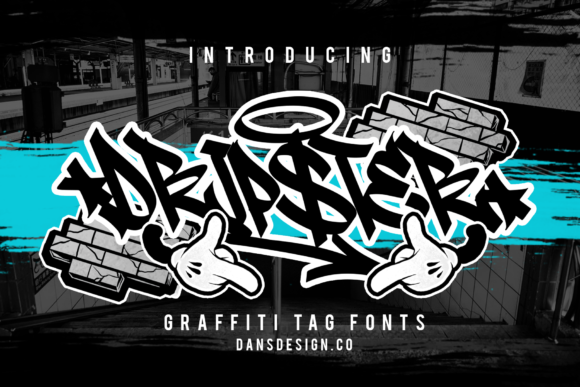
Dripster Font: The Ultimate Graffiti-Themed Display Font for Your Design Needs
In the world of typography, fonts play a crucial role in conveying the tone and personality of a design. When it comes to creating bold and eye-catching designs, a graffiti-themed font can be an excellent choice. One such font that has gained popularity among designers is the Dripster Font. In this article, we’ll explore what makes Dripster Font an outstanding choice for your design needs and how it can add an adventurous and authentic feel to your projects.
What is Dripster Font?
Dripster Font is a graffiti-themed display font designed to add a touch of edginess and urban flair to your designs. This font is perfect for creating bold and eye-catching headlines, titles, and slogans that demand attention. With its unique and authentic graffiti-inspired style, Dripster Font is ideal for designers looking to add a bit of rebelliousness and attitude to their work.
Key Features of Dripster Font
- Unique Graffiti-Inspired Style: Dripster Font boasts a distinctive graffiti-themed design that sets it apart from other fonts.
- Bold and Eye-Catching: The font’s bold and chunky design makes it perfect for creating attention-grabbing headlines and titles.
- Authentic Urban Feel: Dripster Font’s authentic graffiti style gives it an urban and edgy feel that’s perfect for designs that require a bit of attitude.
- Highly Versatile: This font can be used for a wide range of design projects, from posters and flyers to logos and branding.
What Makes Dripster Font Stand Out?
So, what sets Dripster Font apart from other graffiti-themed fonts? Here are a few reasons why Dripster Font stands out:
- Attention to Detail: The font’s design is meticulously crafted to ensure that every letter and character is authentic and true to the graffiti style.
- Excellent Legibility: Despite its bold and chunky design, Dripster Font remains highly legible, making it perfect for use in a variety of design projects.
- Unique Character Set: The font comes with a unique character set that includes graffiti-inspired symbols and characters, adding an extra layer of authenticity to your designs.
- Pair it with a Neutral Font: Pair Dripster Font with a neutral font to create visual interest and add contrast to your design.
- Experiment with Colors: Dripster Font looks great in bold and bright colors. Experiment with different colors to find the perfect combination for your design.
- Use it for Headlines and Titles: Dripster Font is perfect for creating bold and eye-catching headlines and titles that demand attention.
Benefits of Using Dripster Font
Using Dripster Font in your designs comes with a range of benefits, including:
- Increased Visual Interest: Dripster Font’s bold and eye-catching design adds visual interest to your designs, making them more engaging and attention-grabbing.
- Authentic Urban Feel: The font’s authentic graffiti style gives your designs an urban and edgy feel that’s perfect for brands and projects that require a bit of attitude.
- Improved Brand Identity: Using Dripster Font in your designs can help to create a unique and memorable brand identity that sets you apart from your competitors.
In conclusion, Dripster Font is an outstanding graffiti-themed display font that’s perfect for adding an adventurous and authentic feel to your design projects. With its unique and authentic graffiti-inspired style, bold and eye-catching design, and highly versatile nature, Dripster Font is an excellent choice for designers looking to create bold and eye-catching designs. Whether you’re working on a poster, flyer, logo, or branding project, Dripster Font is sure to make a statement.
- What is Dripster Font?: Dripster Font is a graffiti-themed display font designed to add a touch of edginess and urban flair to your designs.